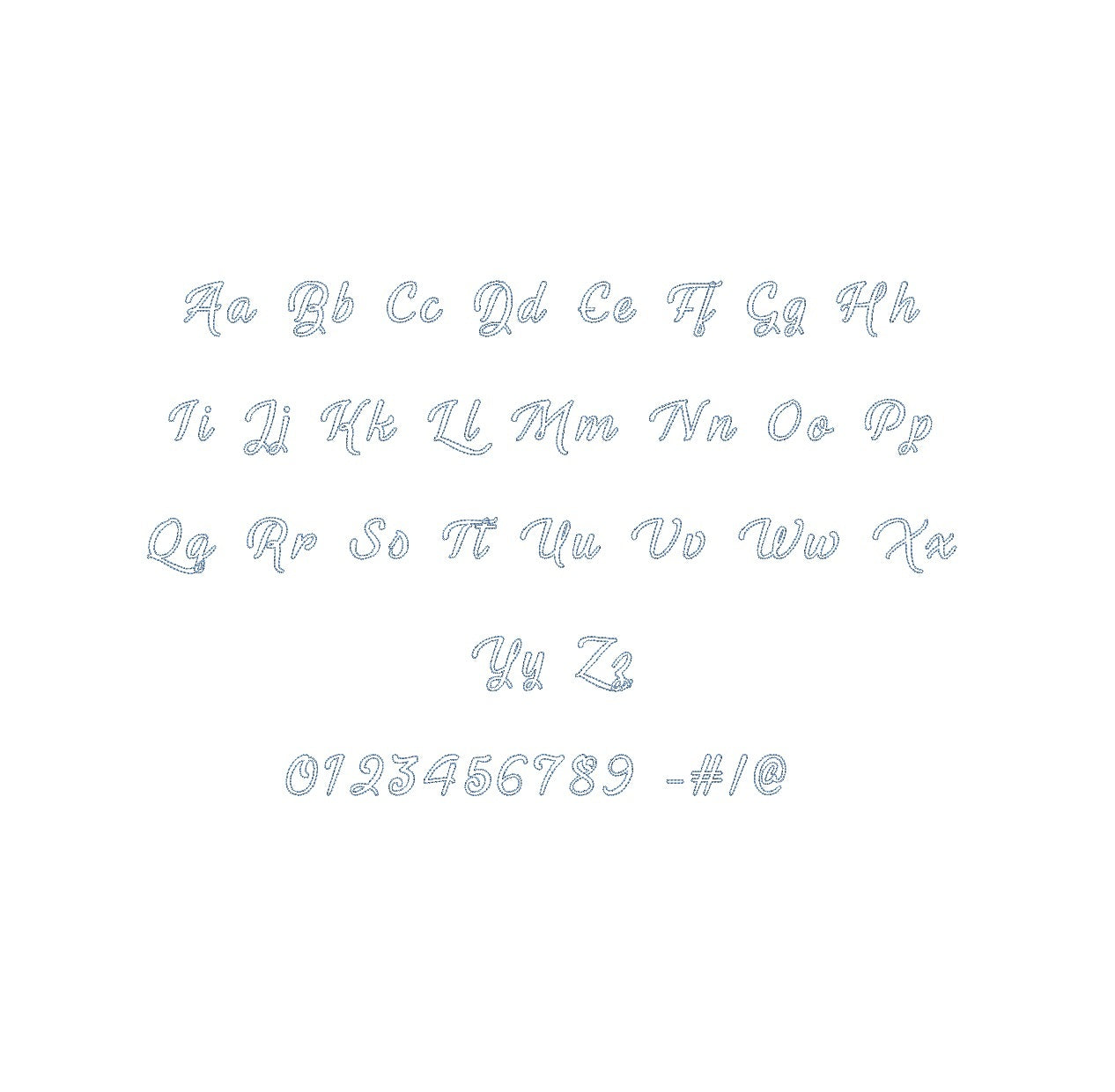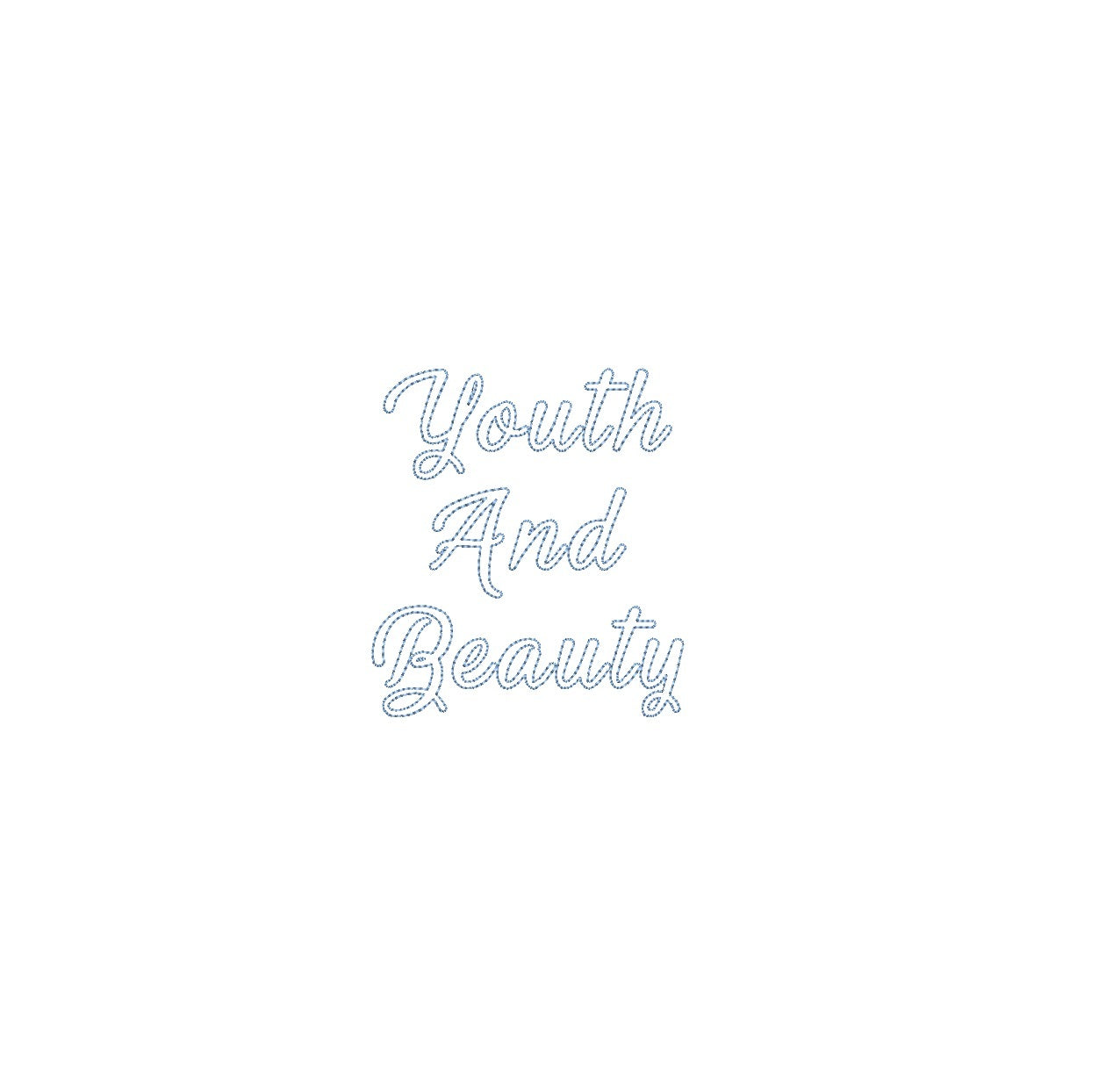
Elevate your embroidery projects with the Youth and Beauty Bean Stitch Outline ESA font, compatible with Wilcom Studio e4.5.6 and Hatch 3 versions and up. This font seamlessly blends youthful charm and timeless elegance, infusing your designs with a unique aesthetic perfect for versatile monograms and embellishments. Experience seamless compatibility for exceptional results and unleash a new level of stitching finesse. Transform your creations into embroidery masterpieces that radiate vibrancy and creativity. Elevate your projects with the Youth and Beauty Bean Stitch Outline ESA font and make your embroidery truly captivating and unforgettable.